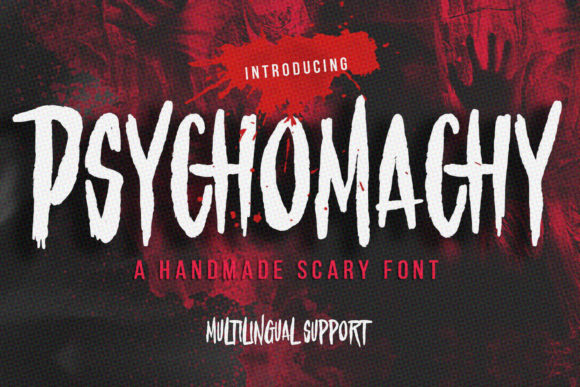
Psychomachy: A Dark Display Font for Halloween and Beyond
If you have ever scrolled through design galleries looking for that perfect, spine-chilling typeface to cap off a spooky project, you have likely stumbled upon Psychomachy. It is not just another decorative font; it is a distinctively creepy and dark display font that immediately sets a tone of unease. Designed with sharp edges, jagged contours, and an overall aesthetic that feels like it belongs in a haunted house or a gothic novel, Psychomachy has become a go-to resource for anyone needing to inject a sense of dread or mystery into their visual work.
While its primary association is with the horror genre, the versatility of this typeface extends far beyond simple holiday decorations. Whether you are a graphic designer crafting a poster for a local theater production, a small business owner launching a limited-edition product line, or a hobbyist creating custom party invitations, understanding how to leverage Psychomachy effectively can elevate your project from amateur to professional. This article explores the practical applications of this PUA-encoded font, helping you determine when and why to use it in your specific context.
Understanding the Visual Impact of Psychomachy
Before diving into specific use cases, it is important to understand what makes Psychomachy stand out. The font’s name itself suggests a battle of souls, hinting at the internal or external conflicts often depicted in horror narratives. Visually, the characters are irregular and textured, mimicking the look of scratched surfaces, decayed stone, or perhaps even blood-stained parchment. This inherent "creepiness" means that Psychomachy does not sit quietly on a page; it demands attention.
The font is particularly effective because it balances readability with atmosphere. While some horror fonts sacrifice legibility entirely for style, Psychomachy retains enough structure to be readable in short bursts. This makes it ideal for headlines, titles, and key phrases where impact is more important than long-form reading. However, the jagged nature of the letters also means that using it for body text is generally discouraged, as it can cause eye strain and reduce comprehension over longer passages.
Real-World Applications for Creators and Marketers
The utility of Psychomachy varies significantly depending on who is using it and for what purpose. For different audiences, this font serves different functions. Below are several realistic scenarios where Psychomachy proves to be an invaluable tool.
Halloween Events and Seasonal Marketing
The most obvious application for Psychomachy is during the Halloween season. But rather than just slapping the font on a generic flyer, consider how it can enhance specific marketing strategies:
- Event Posters and Flyers: For haunted houses, pumpkin carving contests, or costume parties, Psychomachy provides an instant thematic anchor. When paired with dark backgrounds and high-contrast colors like orange, purple, or sickly green, the font amplifies the eerie atmosphere before the attendee even arrives.
- Social Media Campaigns: In the fast-scrolling world of Instagram or TikTok, bold, distinctive typography stops the thumb. Using Psychomachy for countdown graphics or teaser images can create a sense of urgency and intrigue, encouraging users to engage with your seasonal content.
- Limited-Edition Packaging: Small businesses selling candy, candles, or apparel can use Psychomachy on labels and tags to signal that a product is part of a special, spooky collection. The font acts as a visual cue that tells consumers they are buying something unique and themed.
The Entertainment Industry
For filmmakers, game developers, and stage performers, typography is a crucial part of world-building. Psychomachy fits seamlessly into genres such as supernatural thriller, psychological horror, and dark fantasy.
- Movies and TV Shows: Title sequences for horror series or indie films often rely on distorted typography to unsettle the audience. Psychomachy can be used for main titles or episode headers to establish a consistent visual language of fear.
- Video Games: Indie game developers creating survival horror or puzzle games can use this font for UI elements like inventory screens, quest logs, or ominous warnings. The PUA encoding allows for easy access to swashes and special glyphs, which can be used to decorate interface borders or highlight critical game states.
- Theater and Escape Rooms: Prop makers designing clues, signs, or menu items for escape rooms benefit greatly from Psychomachy. It adds authenticity to the setting, making props look aged and authentic rather than digitally printed.
Creative Crafts and DIY Projects
For hobbyists and crafters, Psychomachy offers endless possibilities for personalization. Because the font is PUA (Private Use Area) encoded, you can access all the glyphs and swashes with ease, allowing for highly customized designs without needing complex font manipulation software.
- Custom Apparel: Designers creating t-shirts, hoodies, or tote bags for niche markets can use Psychomachy to create striking graphic tees. The font’s edgy look appeals to fans of metal music, goth culture, and alternative fashion.
Conclusion
Psychomachy is more than just a font; it is a mood setter. Its ability to instantly transform a design into something darker and more mysterious makes it an essential asset for creators in the horror, entertainment, and lifestyle sectors. By understanding its strengths—such as its PUA encoding and distinctive jagged aesthetic—and respecting its limitations, you can use Psychomachy to create compelling, memorable visuals that resonate with your audience. Whether you are designing a Halloween invitation or branding a new horror-themed app, let your imagination guide you, but always keep usability and context in mind.